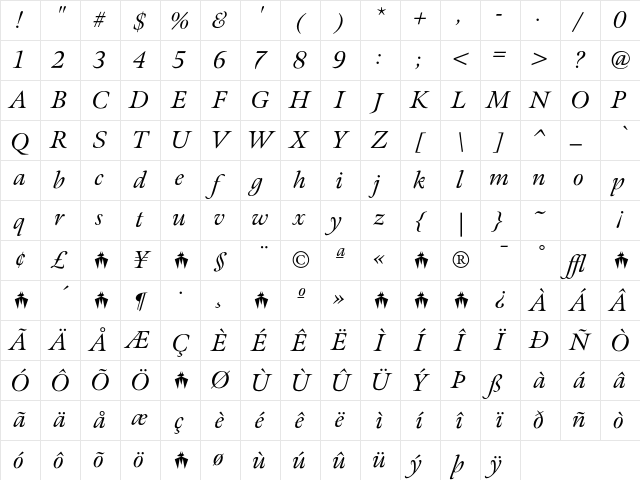
Meno is a composed and adaptable typeface that performs quietly and consistently across a wide range of design contexts. The slanted form adds forward momentum and visual energy.
Pro Tip: Use Meno for emphasis, pull quotes, and subheadings where its slanted energy can add rhythm to the layout.